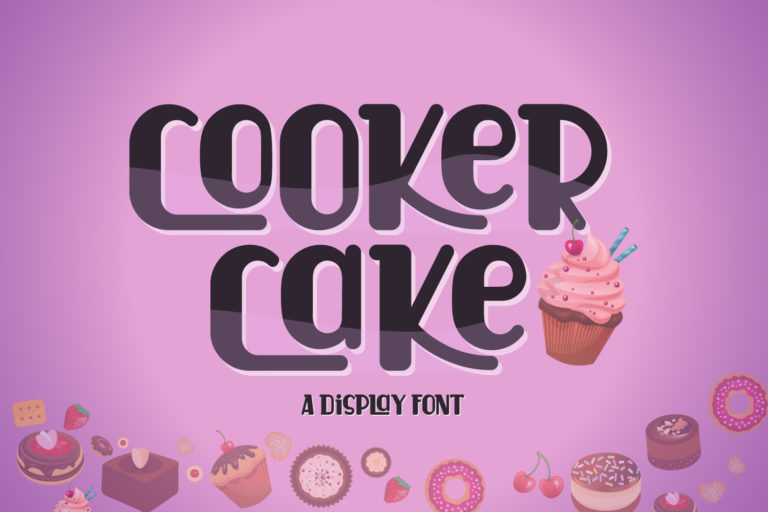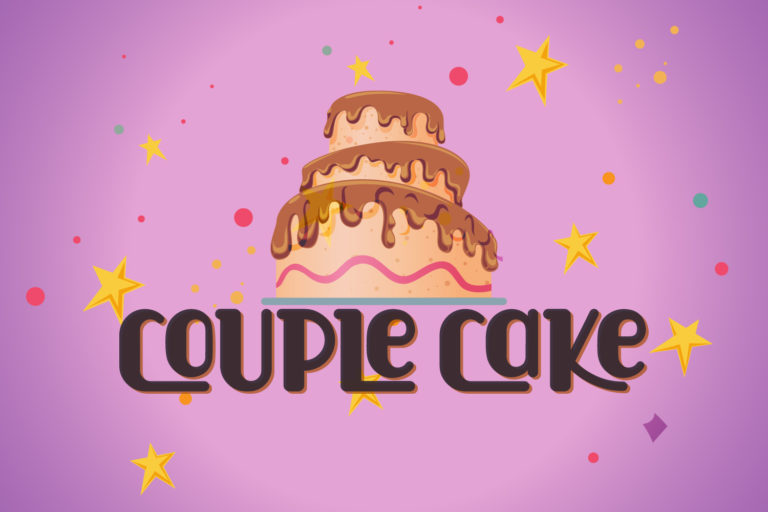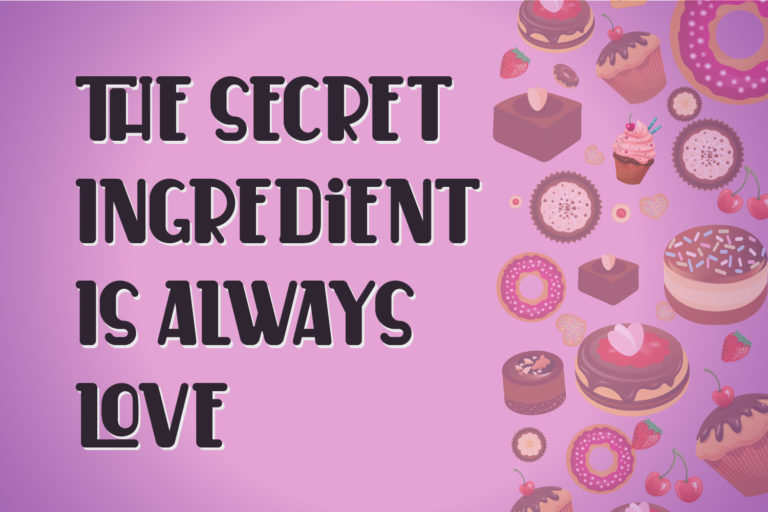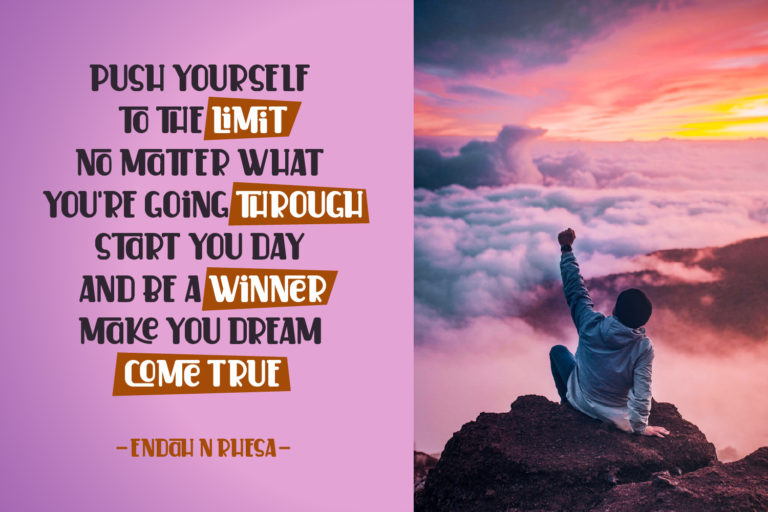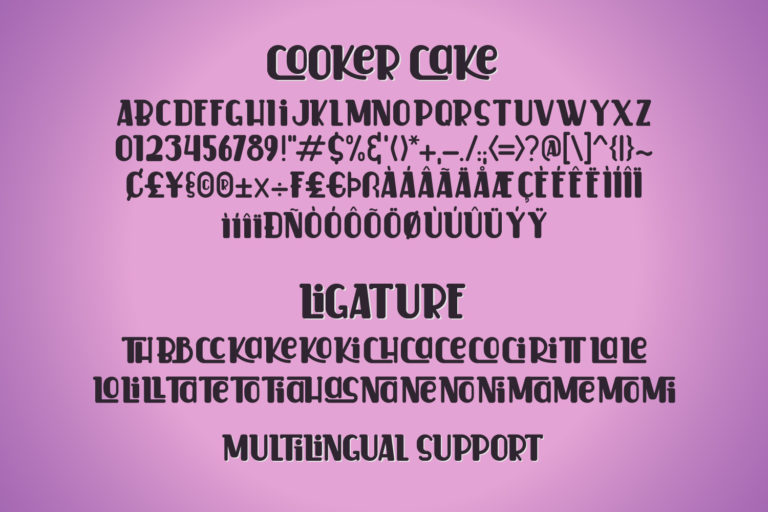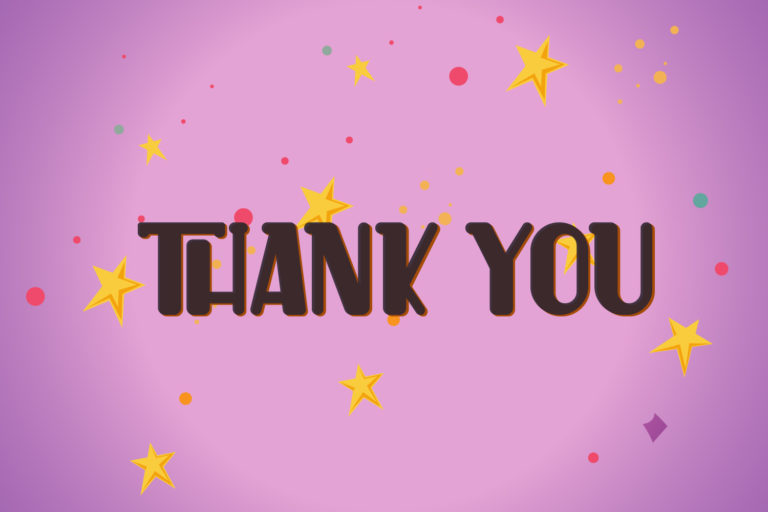
Cooker Cake
Cooker Cake Font is an elegant new font for all your fun projects. It has so many ligature features that make it more elegant and regular. Having a very neat style that is easy to read makes your project more quality.
FEATURES:
• All capital
• Number
• Punctuation
• Multilingual